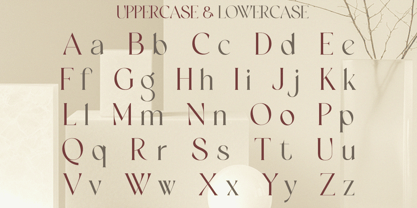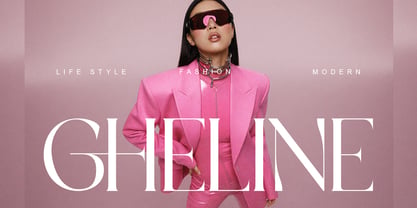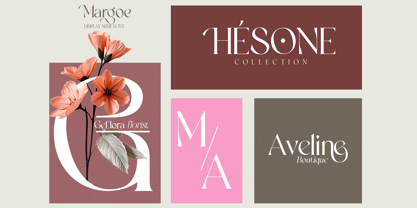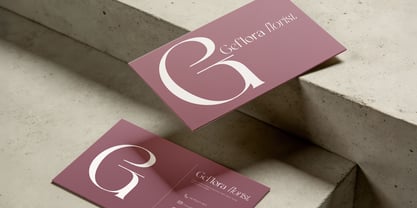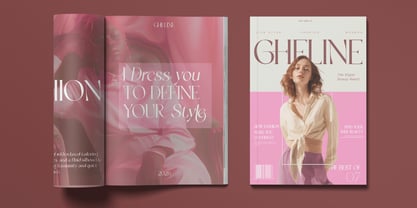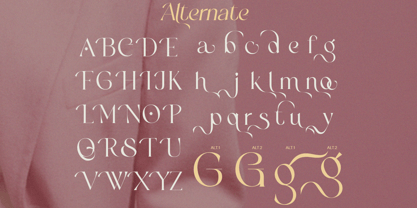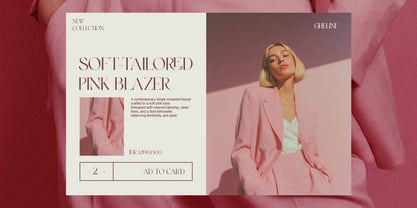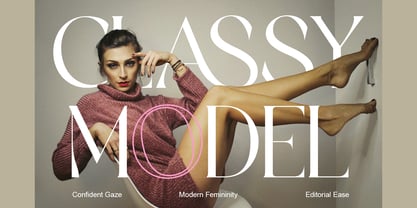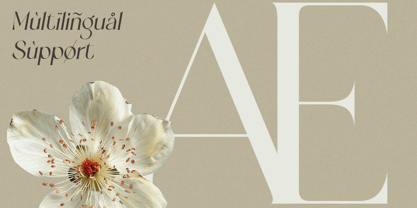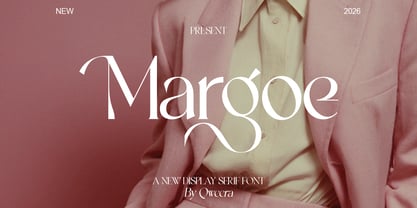
Margoe
Margoe is a modern elegant display serif typeface developed for premium branding and sophisticated editorial use. The font combines graceful curves, balanced contrast, and stylish ligatures for a polished feminine aesthetic. With multilingual support and alternate characters, Margoe performs beautifully across logos, invitations, beauty branding, packaging, and fashion campaigns. An ideal choice for professionals seeking timeless feminine elegance. Features Alternates Ligatures Multilingual support Professional kerning Regular & Italic Elegant serif construction Specifications Language Support: Western, Central Europe Features: Alternates, Ligatures, Italic Recommended For Luxury branding, invitations, beauty packaging, editorial design, fashion identity, premium logos